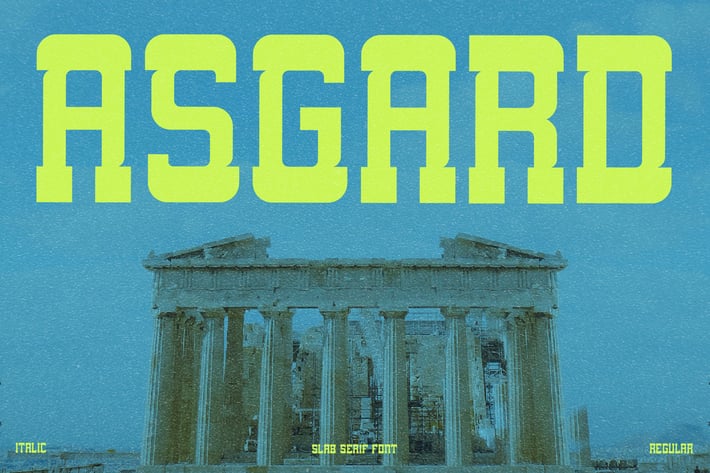
Asgard Slab Serif Font
Asgard Slab Serif Font is a bold and confident typeface designed to make a strong impression. Its slab serif structure and clean edges make it ideal for modern branding, impactful posters, or editorial layouts that demand attention.
Strong and structured slab serif design
Perfect readability for both print and digital use
Highly versatile for display and title designs
Posters & headlines
Social media visuals
Branding projects
Editorial & packaging design
Modern creative layouts
Command attention with Asgard’s timeless slab serif power — bold, structured, and built to make every word stand tall.